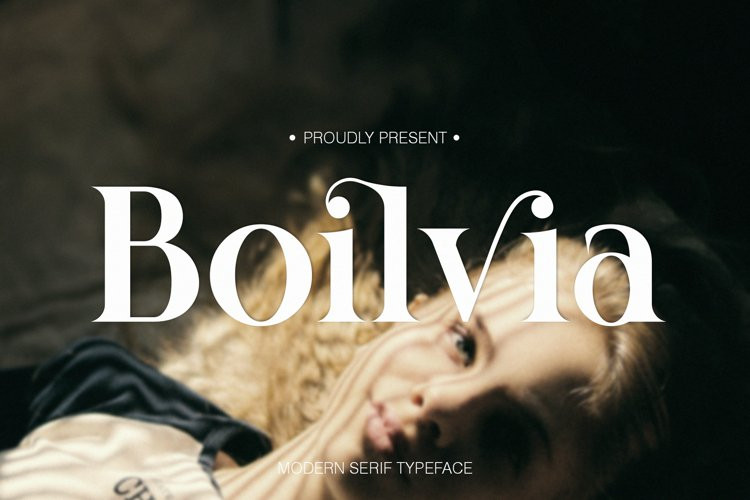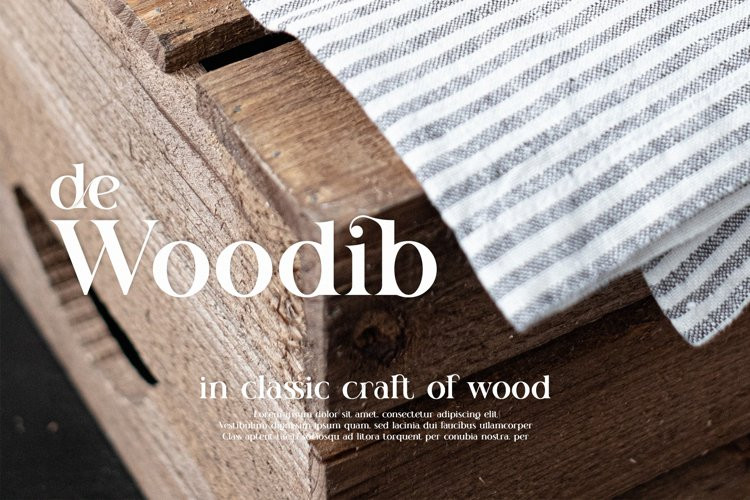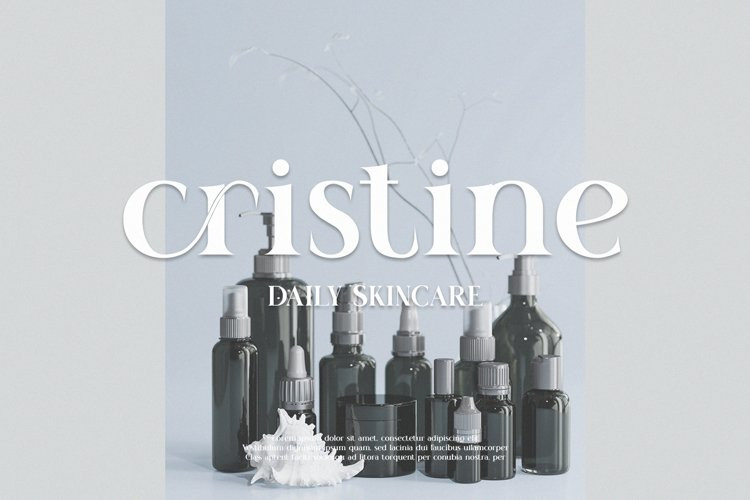
Boilvia Font
Boilvia FontBoilvia is a elegant and classy serif typeface – This font is both modern and nostalgic and works great for logos, magazine, social media. Already matched up and ready to be used together for your next design! For those of you who are needing a touch of elegant, stylish, classy, chic and modernity for your designs, this font was created for you!
Boilvia was built with OpenType features and includes ligatures, numbers, punctuation, and it also supports other languages.